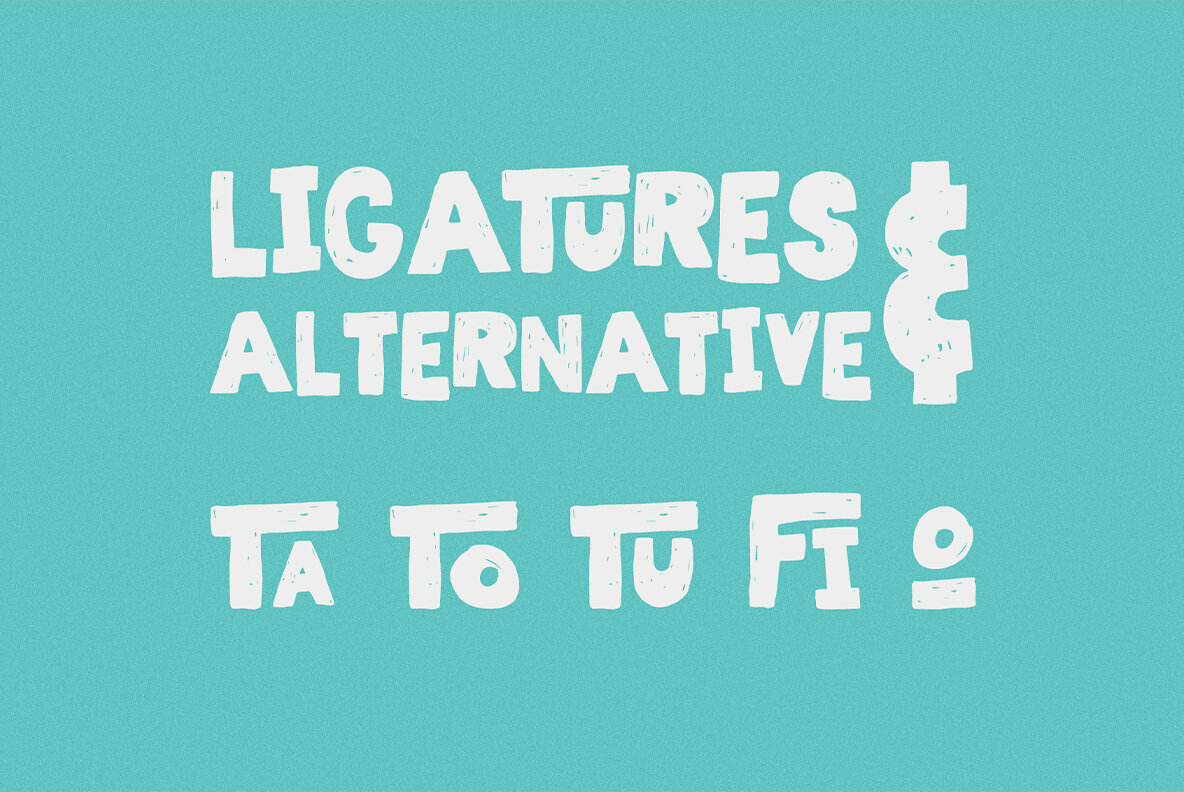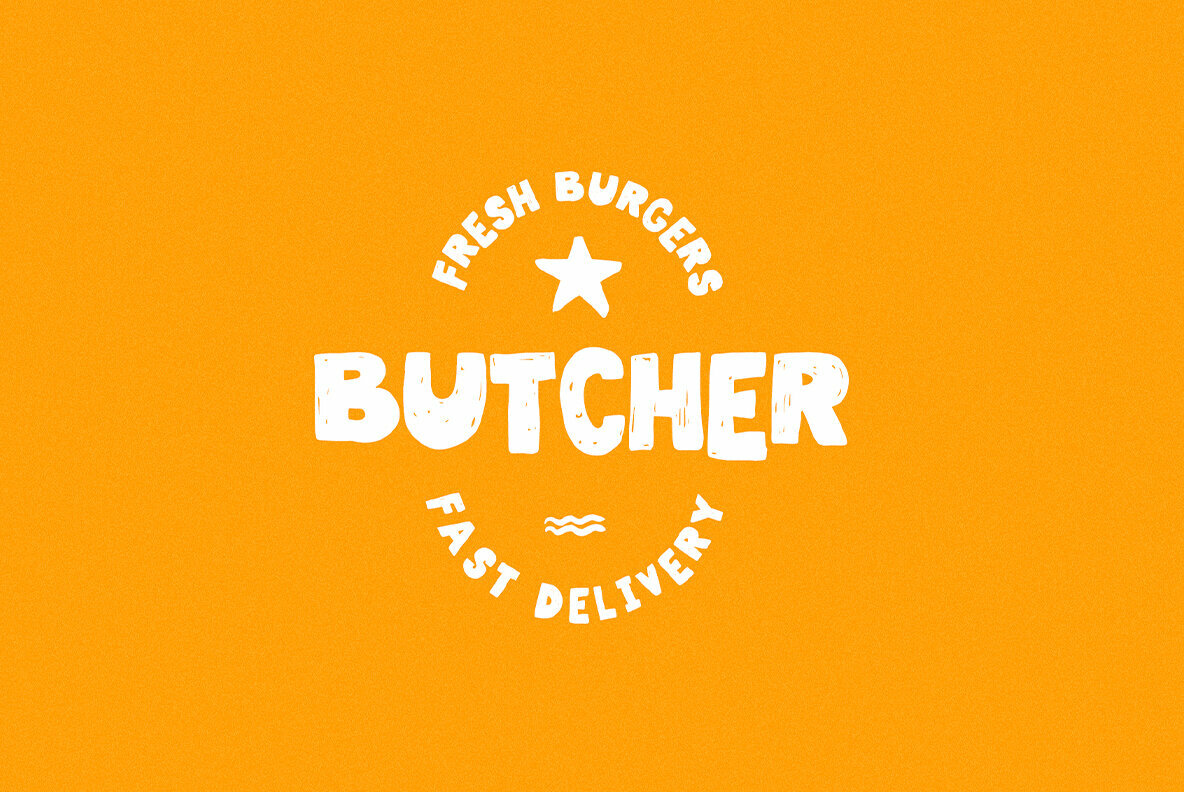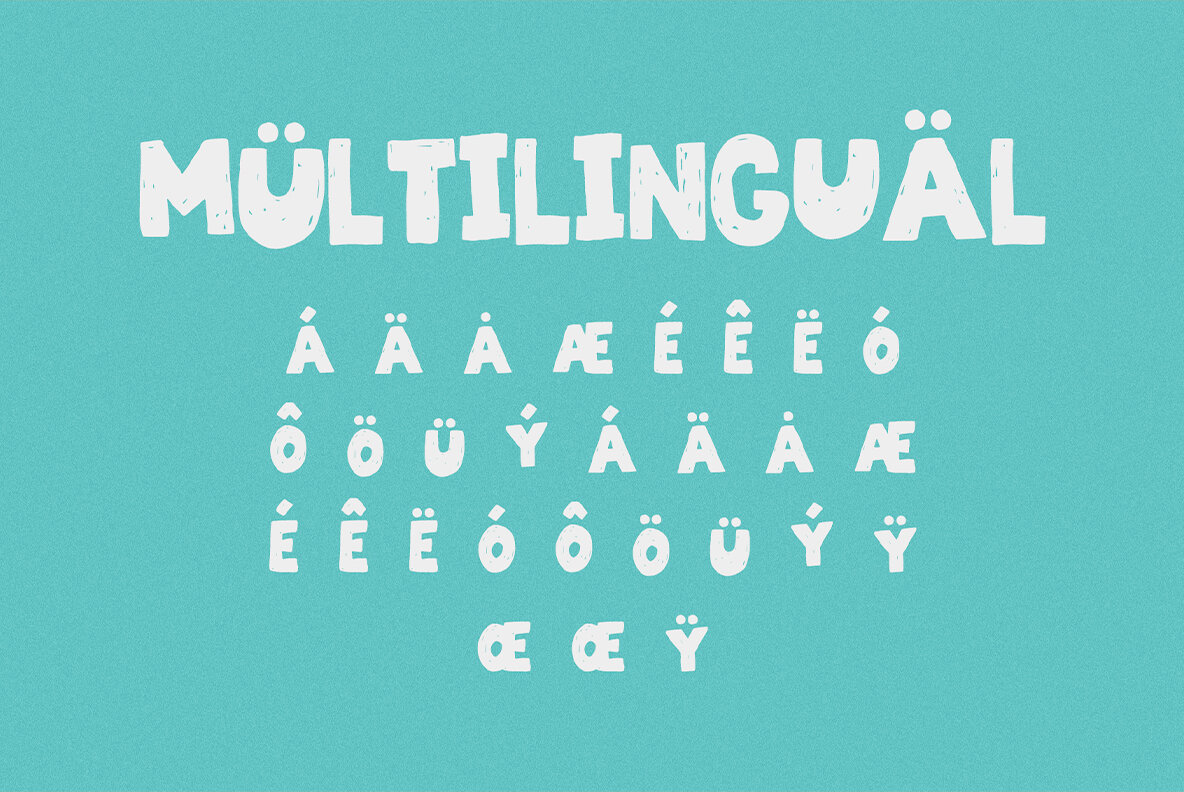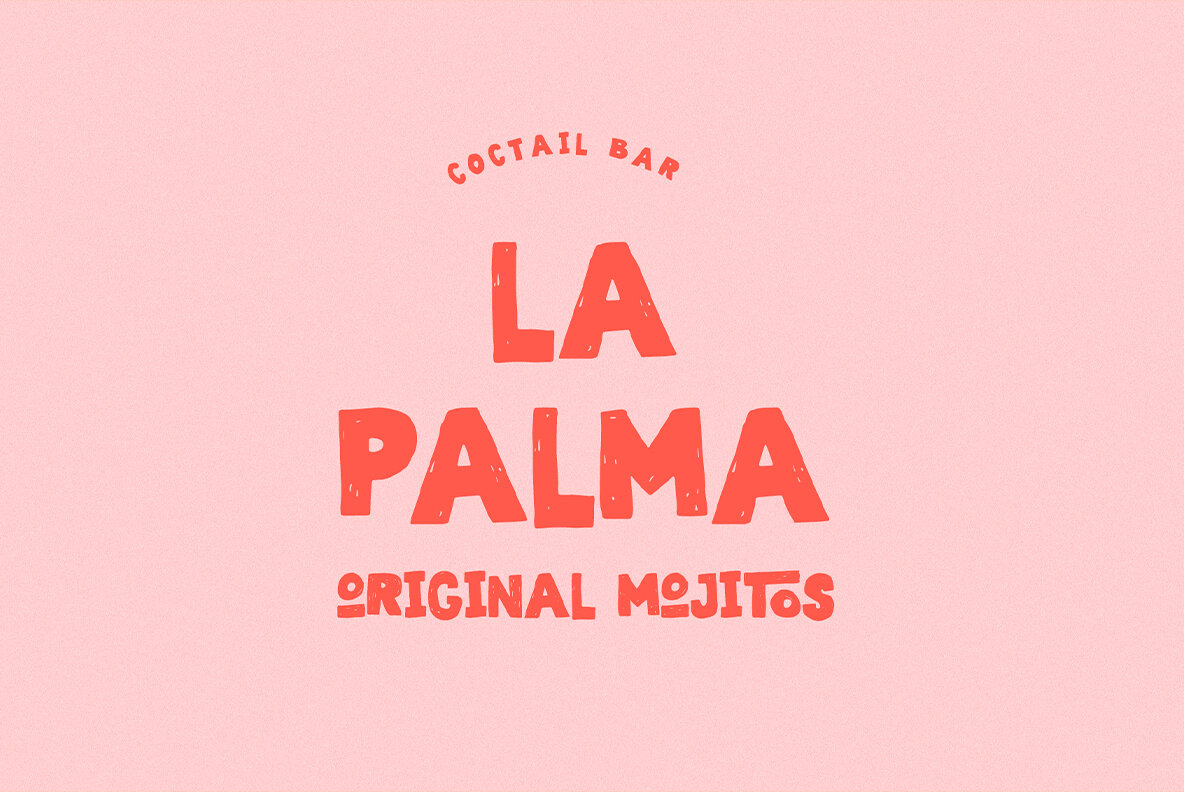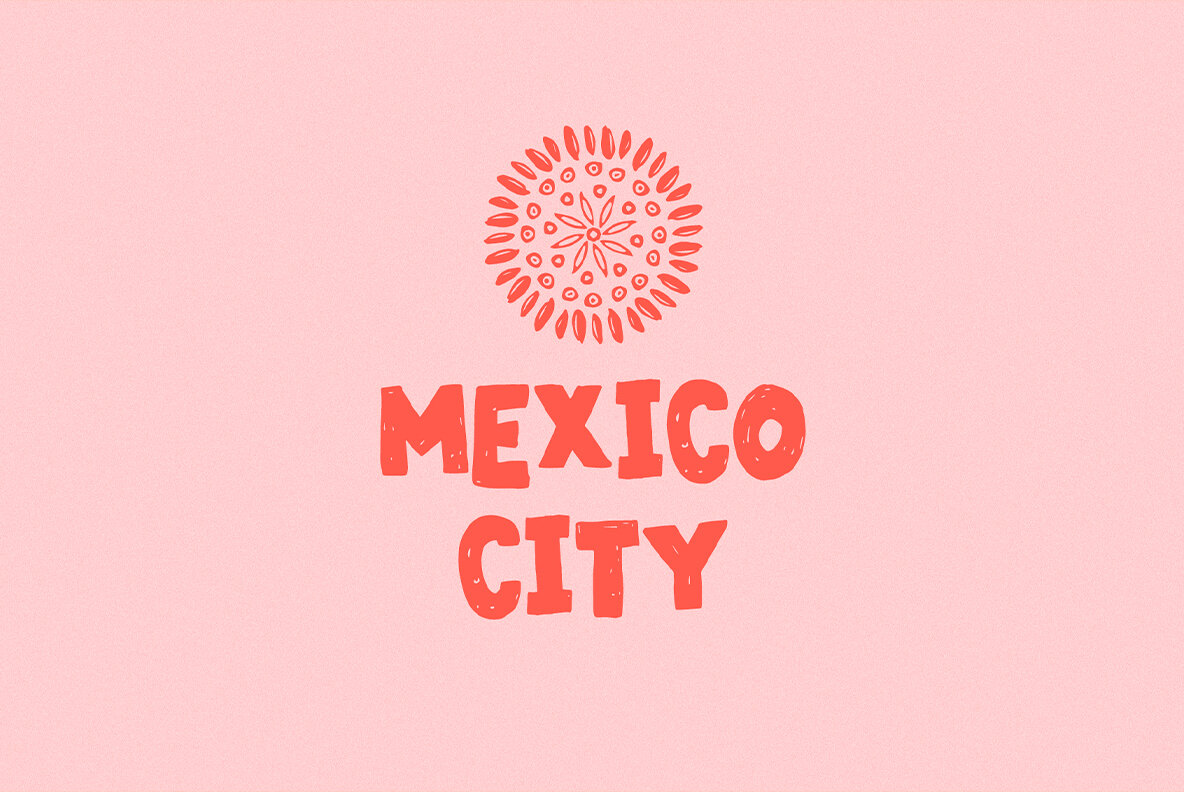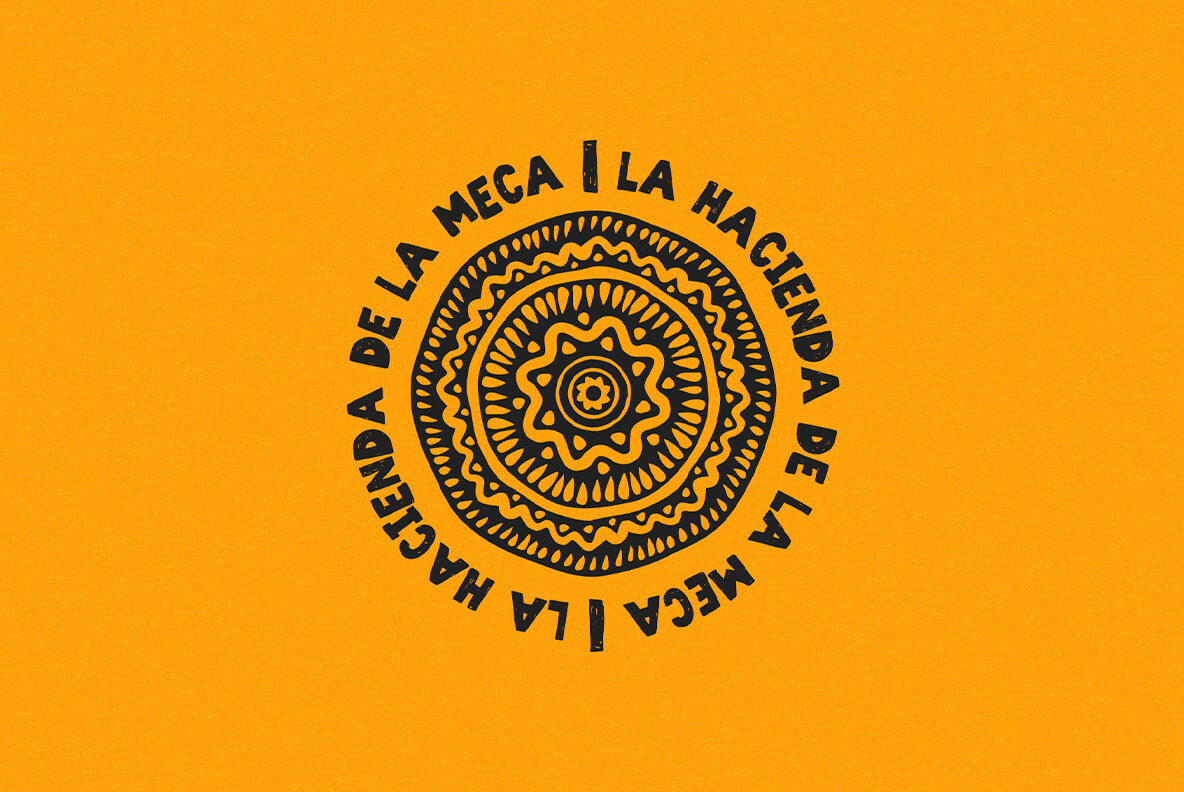
Tampico Font
Tampico Typeface by Artcoast Std offers a unique blend of rustic charm and modern design elements, making it an excellent choice for diverse creative projects. This font includes over 80 glyphs and alternative characters, ideal for adding stylistic flair to logos, packaging, and food-related graphics.Tampico Typeface: Versatile Rough Font with Alternative Characters